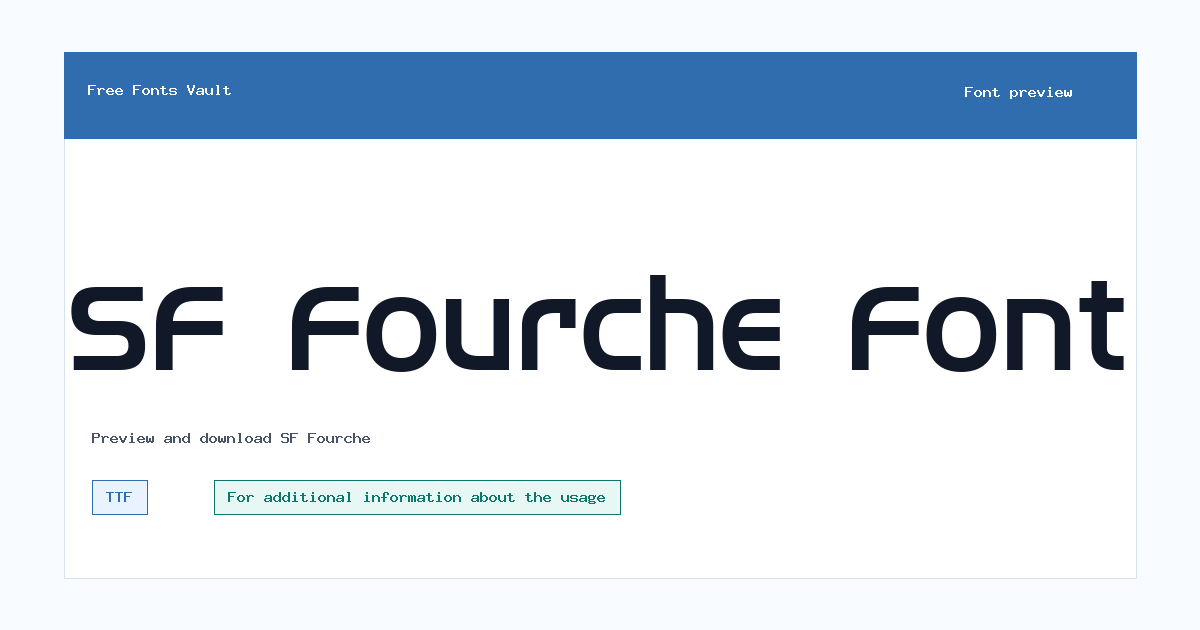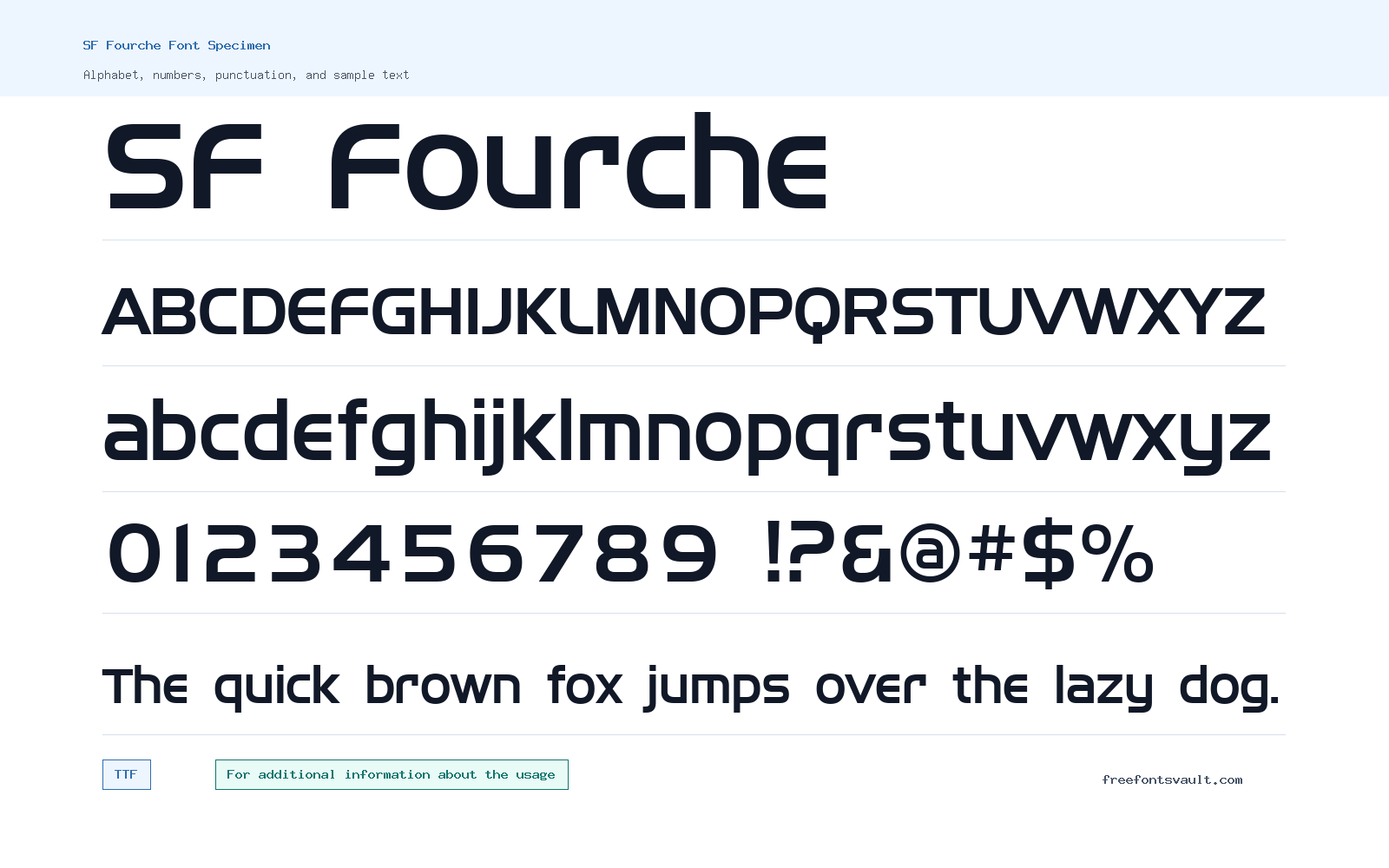
SF Fourche
SF Fourche is a ShyFoundry typeface by Derek Vogelpohl, offered here in TrueType format with regular, italic, and bold styles for quick previewing and download.
SF Fourche has a structured, display-friendly feel that works best when the text is large enough for its shapes to show clearly. Because the download includes upright, italic, and bold styles, you can test a small visual system instead of relying on one single font file.
SF Fourche has three usable styles in this listing: regular, italic, and bold. That gives visitors enough range to test a small identity system, not just a single headline. Try the regular style for names or labels, the italic for a short accent line, and the bold cut when the text needs stronger contrast.
• Standard upright and italic styling with a bold weight for emphasis
• Headlines, title graphics, and short display text
SF Fourche is credited to Derek Vogelpohl and ShyFoundry.
Which styles are included with SF Fourche?
SF Fourche includes regular, italic, and bold styles.
Who designed SF Fourche?
The font is credited to Derek Vogelpohl, with ShyFoundry listed as the foundry.
What is SF Fourche best used for?
It is best tested for short display text such as headings, labels, posters, and title graphics rather than long reading text.